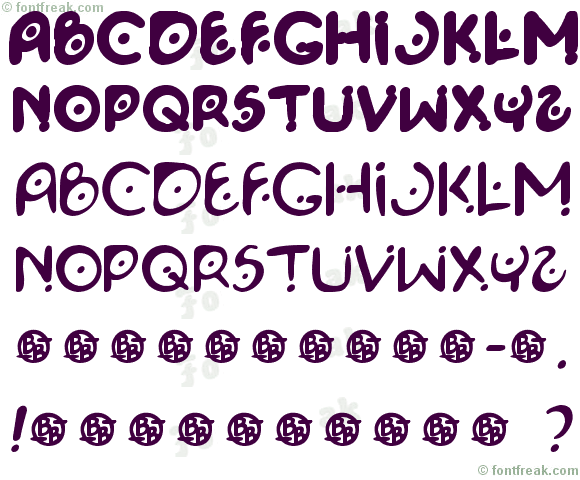
Space Pontiff
About Space Pontiff
Space Pontiff is a whimsical display font created by Blambot Fonts, designed to bring a unique touch to any project. With its playful, cartoonish style, this typeface is characterized by rounded forms and a casual, friendly demeanor. The strokes are thick and bold, offering an excellent contrast that makes it highly legible while maintaining a fun aesthetic. The spacing is generous, contributing to its approachable vibe, and the decorative elements, such as the circular accents within some characters, evoke a sense of space and adventure.
This font is a great choice for a variety of creative applications. It shines in contexts like children’s book covers, where its charming style can capture the attention of young readers. Additionally, Space Pontiff works wonderfully for event posters, especially those with a whimsical or futuristic theme. Its unique character also makes it suitable for branding and marketing materials aimed at a younger audience, such as merchandise for theme parks or gaming events. Content creators looking for a distinctive touch in their social media graphics will find it equally effective.
What truly sets the Space Pontiff font apart is its ability to convey a sense of fun and creativity without compromising on clarity. It stands out among other display fonts with its distinctive flair, making it an excellent choice for anyone looking to make a bold statement. Don’t miss out on the Space Pontiff font free download for your next creative endeavor.